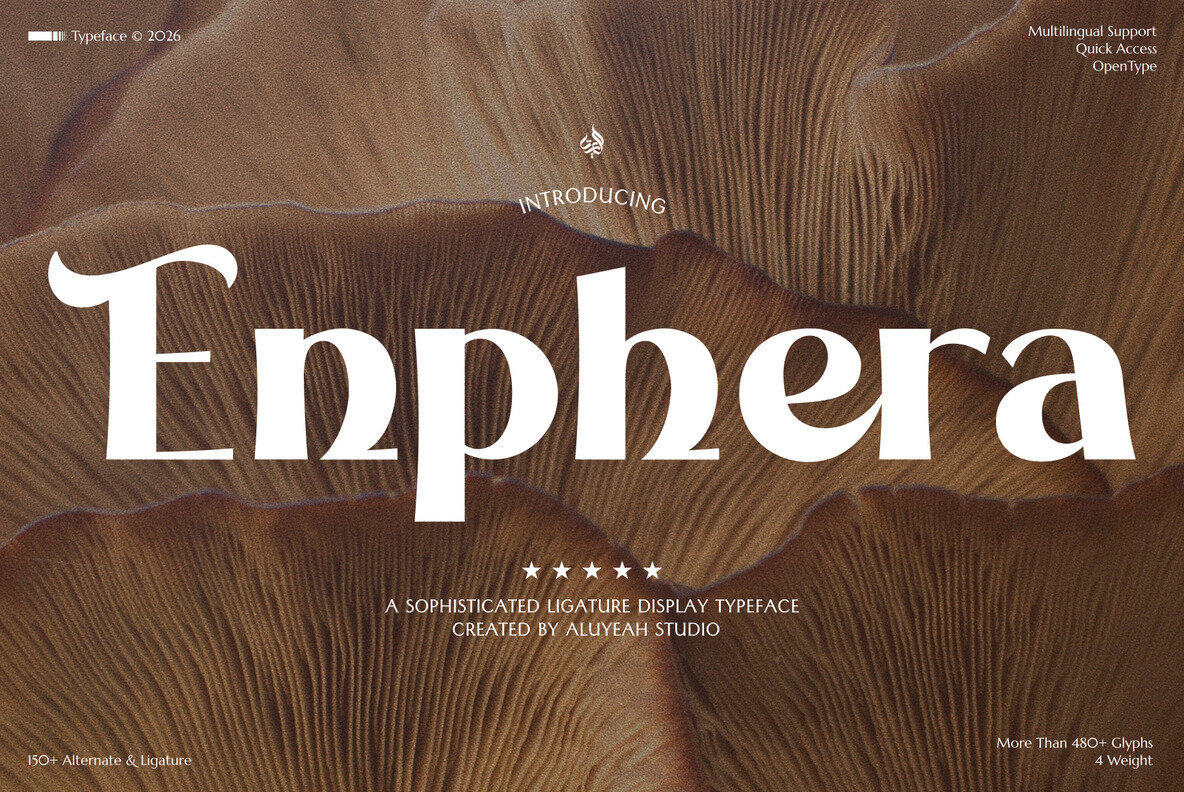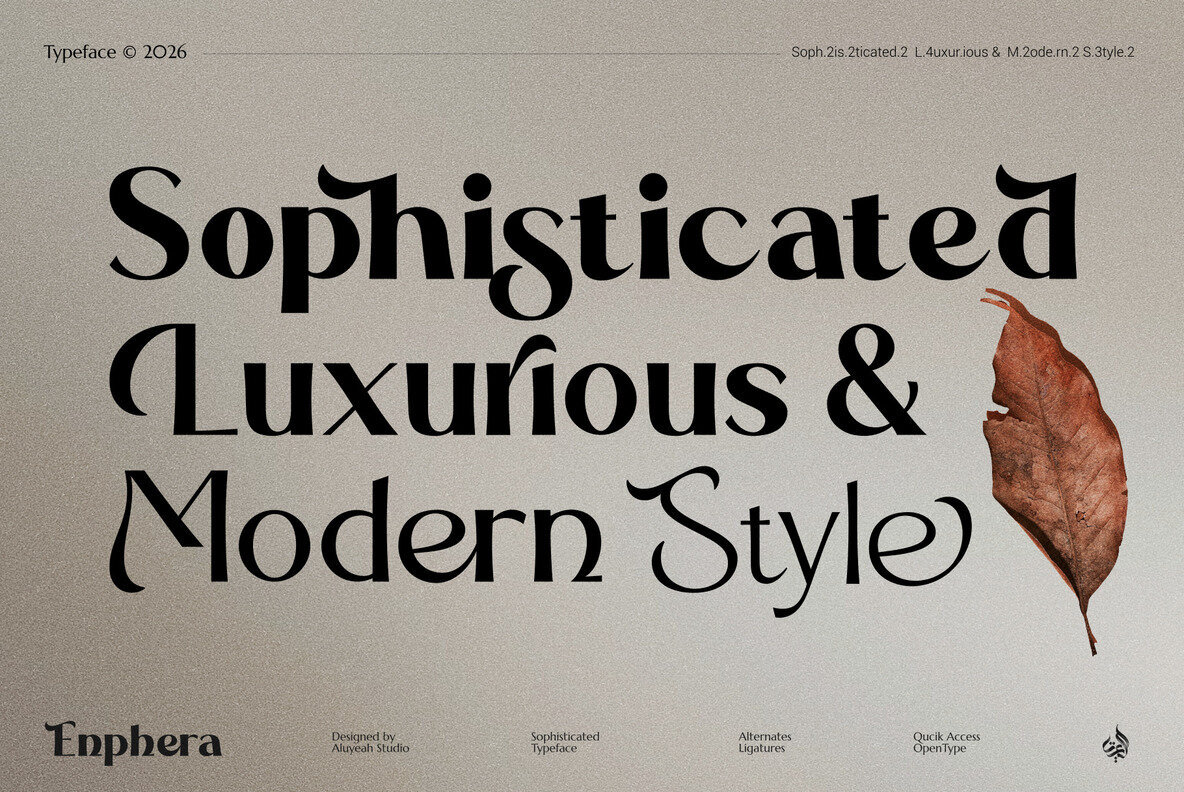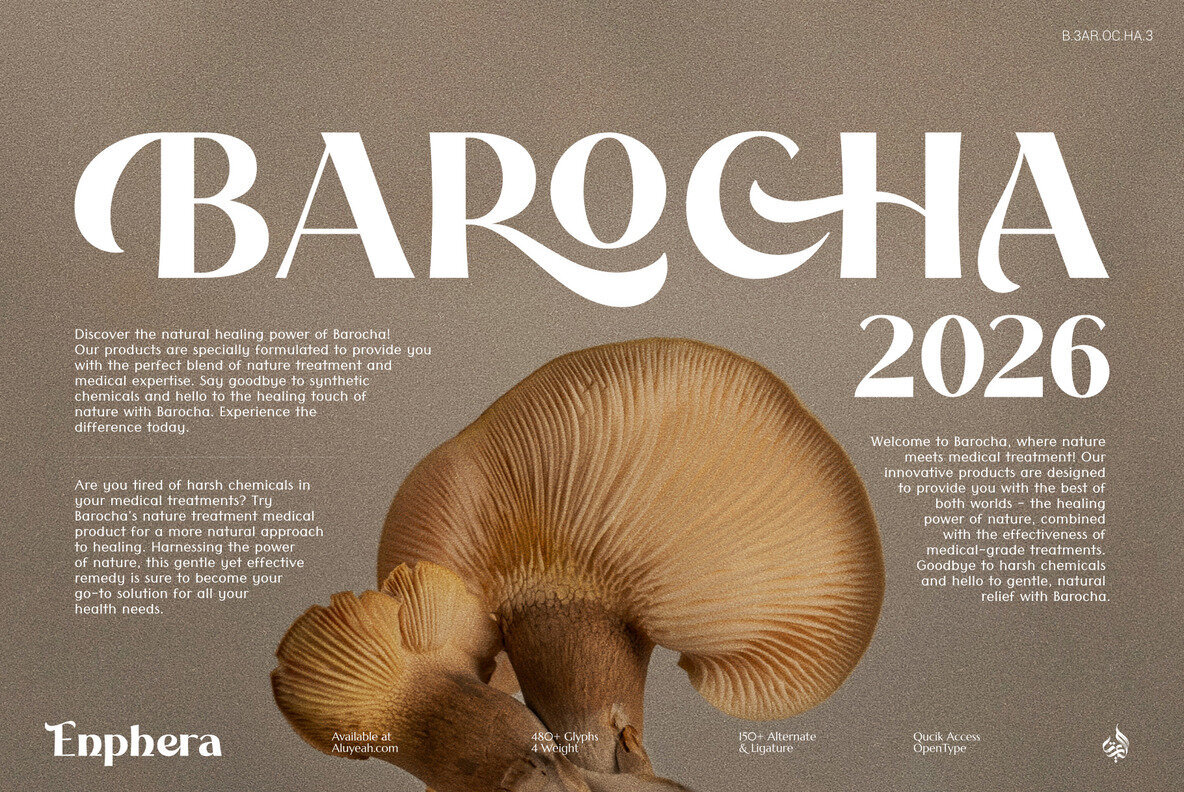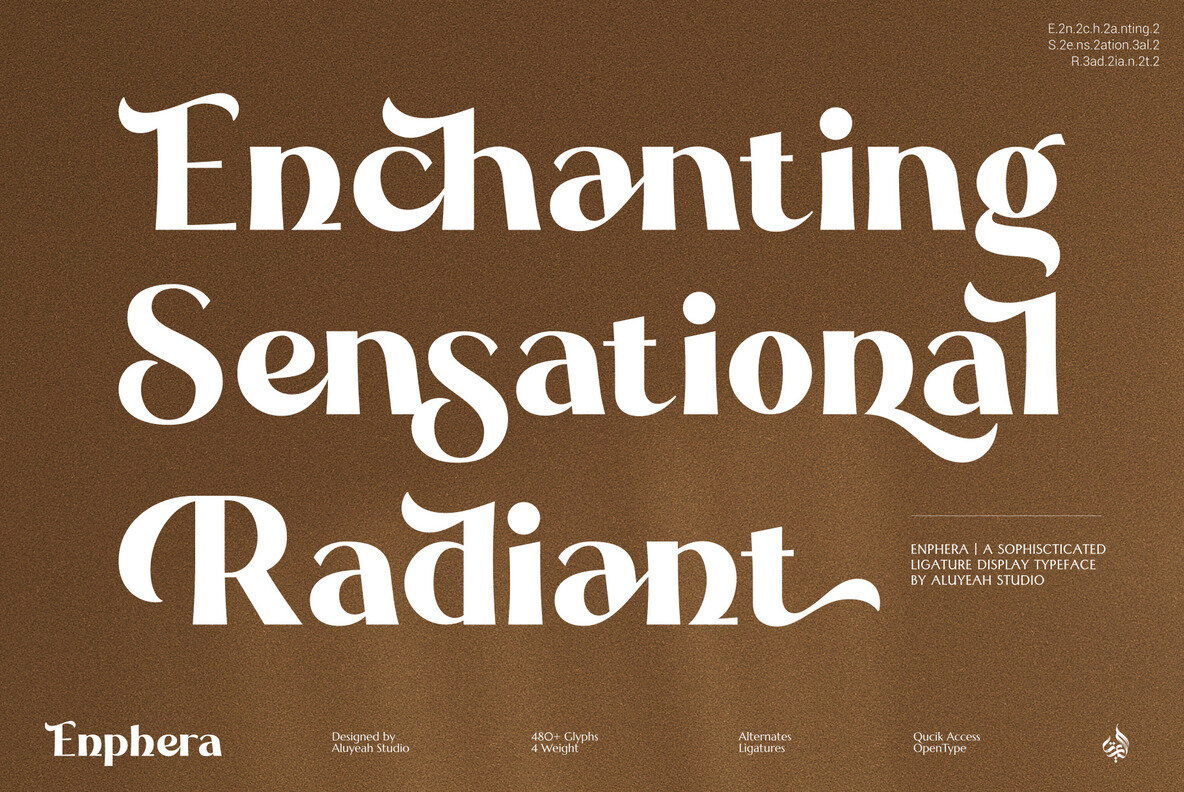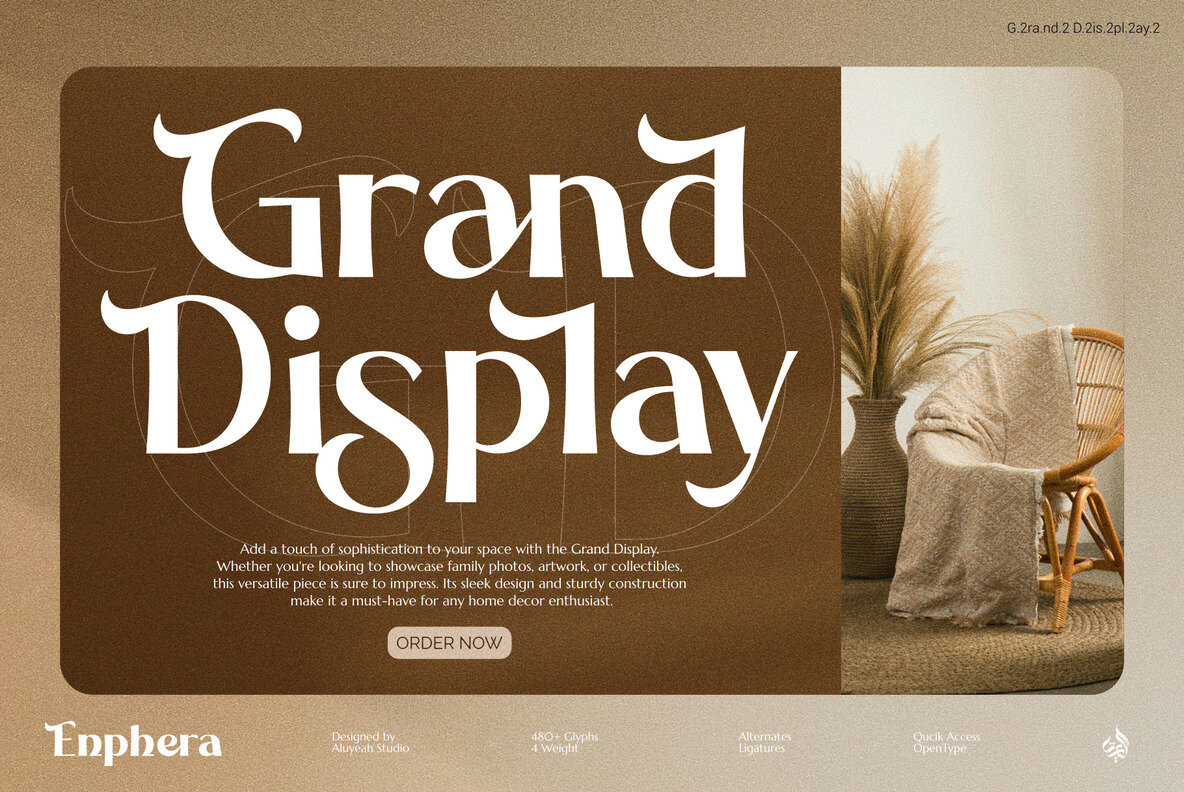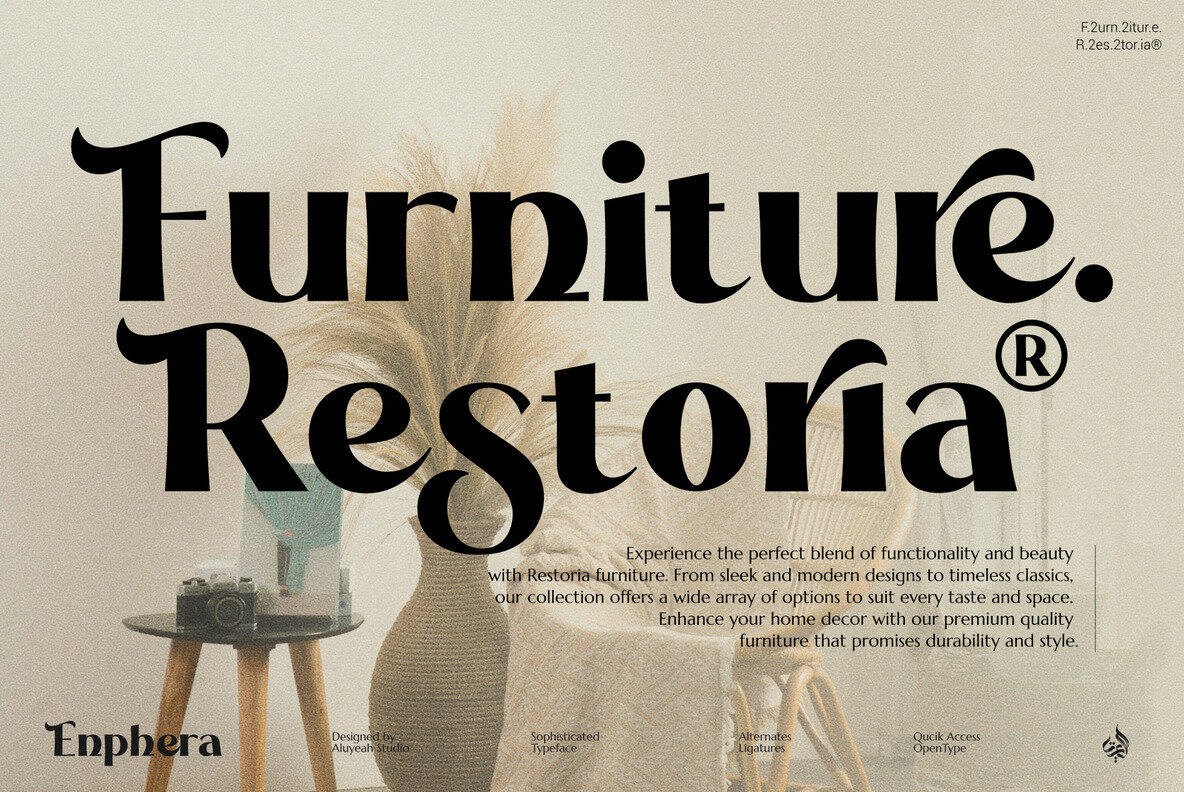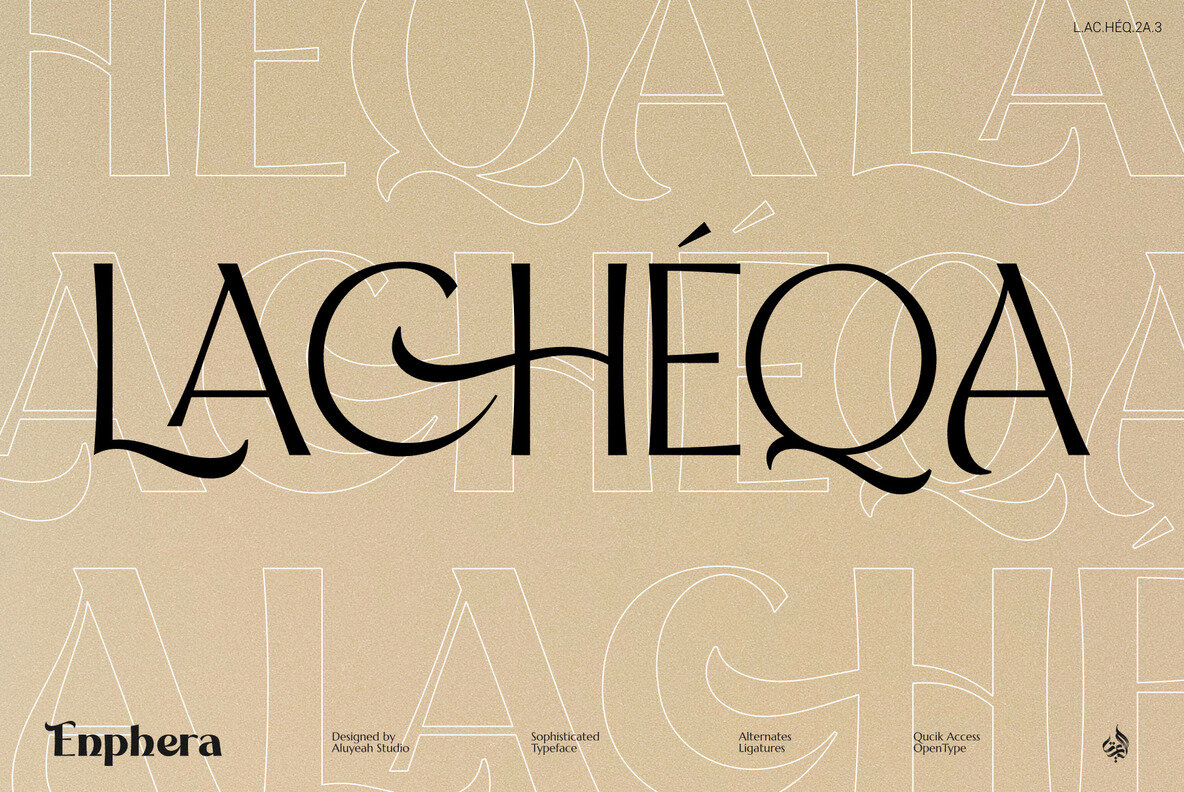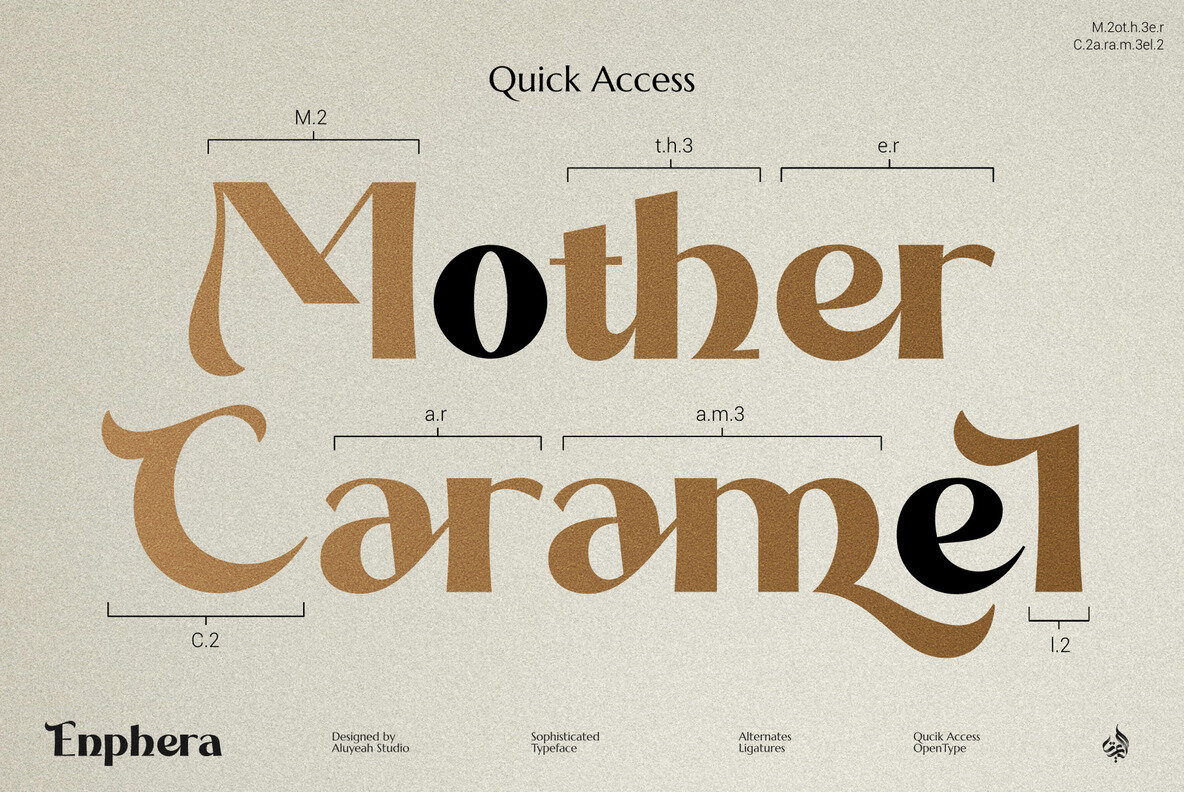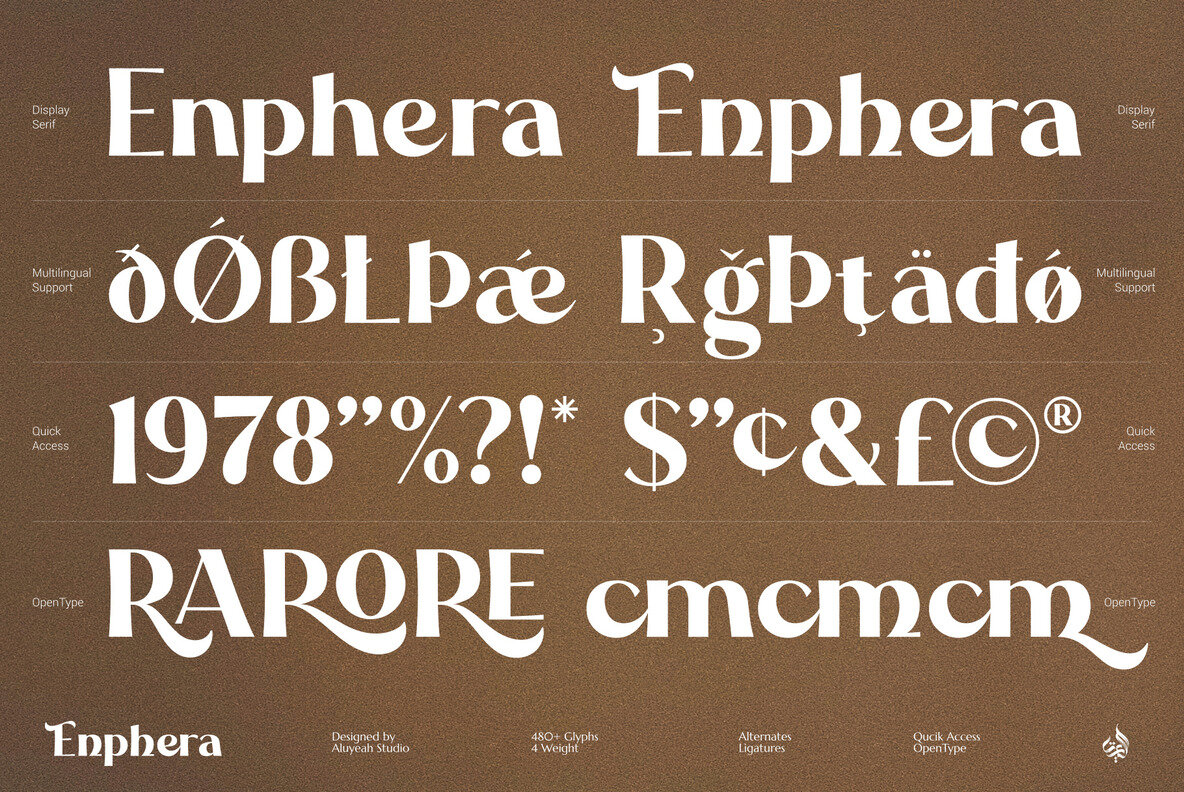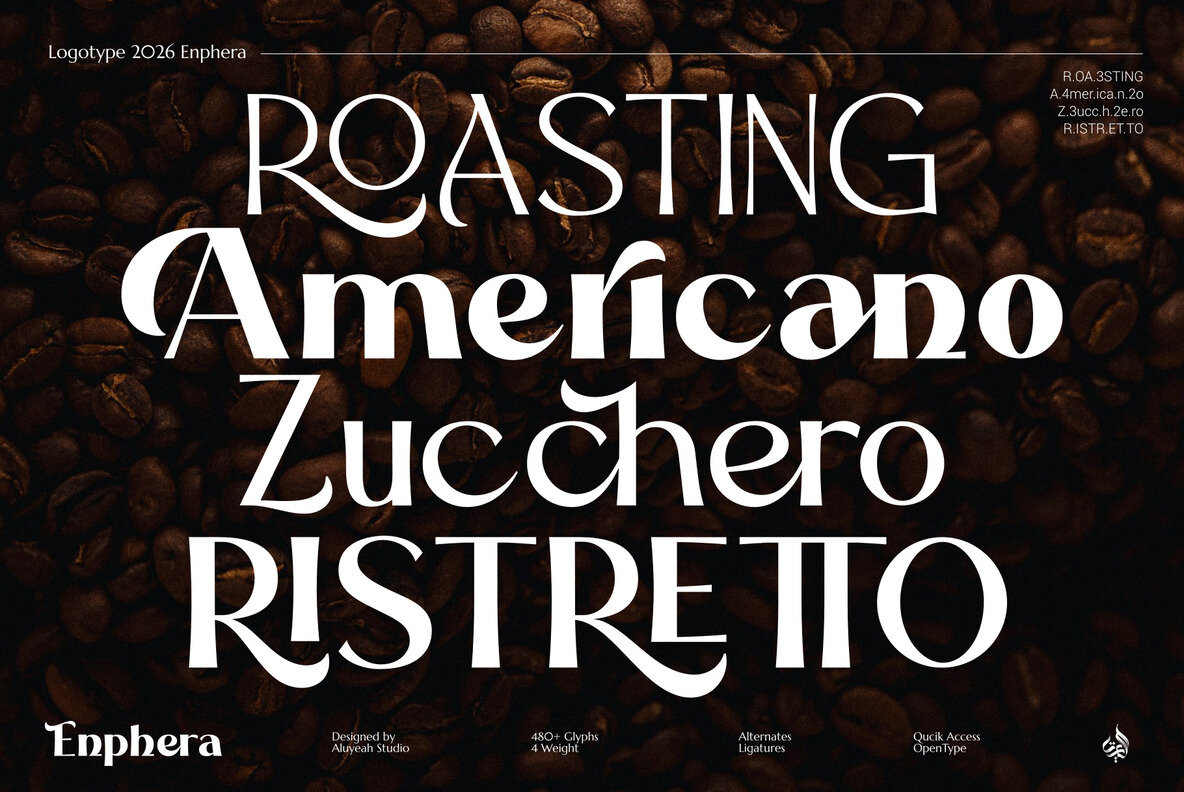
Enphera Font
Enphera offers a refined approach to display typography, blending modern sophistication with functional versatility. This stylish ligature typeface stands out with its graceful forms and four distinct weights, making it suitable for a variety of creative projects. With over 480 glyphs, designers benefit from an extensive range of alternates and ligatures, giving each project a customized and polished finish. Designed for effortless usability, Enphera includes OpenType features and supports 67 languages, making it accessible for global audiences. The font is PUA encoded for seamless character access—quick shortcuts allow you to call alternates directly, such as A.2, A.3, or c.h.3, ensuring streamlined workflow. Whether you're developing bold headlines or intricate branding elements, Enphera adapts to your needs while maintaining visual appeal.Enphera Ligature Display Typeface